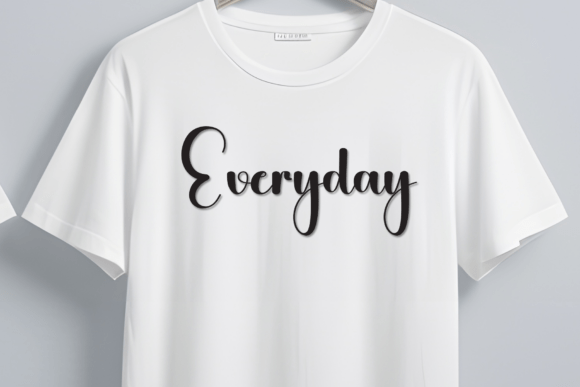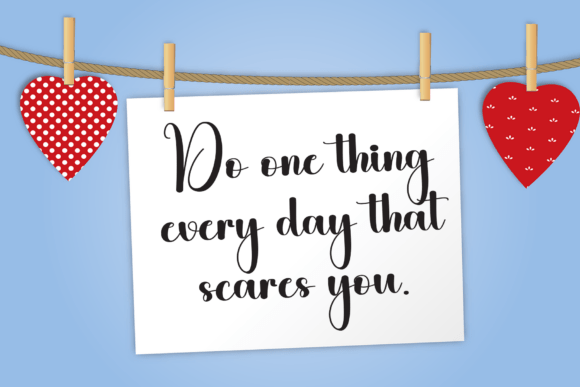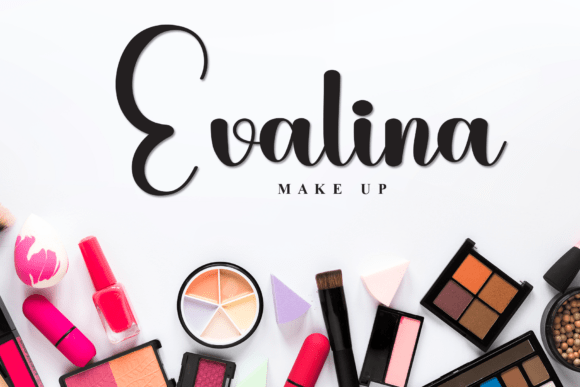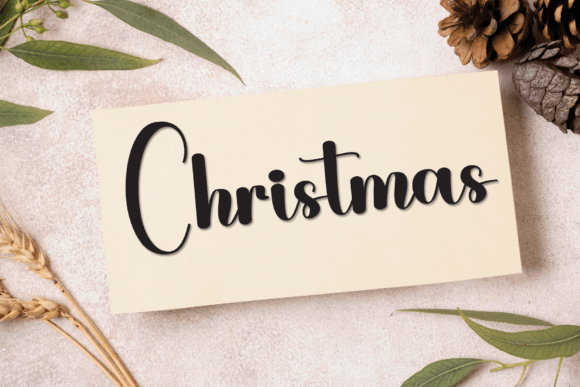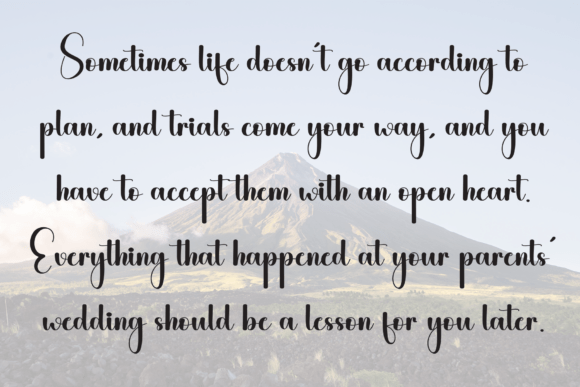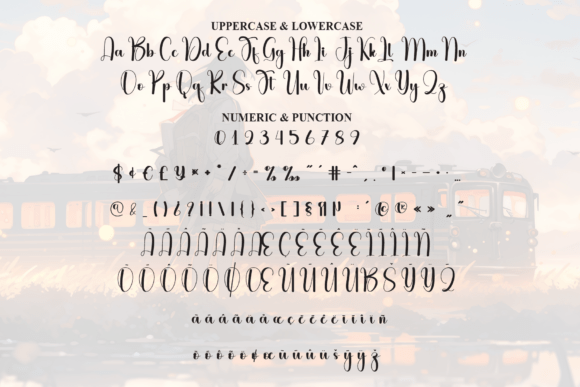
The Elegance of Anime Font: A Designer’s Delight
I’ll never forget the time I was working on a logo design project for a high-end fashion brand. The client wanted a font that exuded elegance, sophistication, and a touch of modernity. I scoured the internet, tried countless fonts, but nothing seemed to fit the bill. That was until I stumbled upon Anime Font. It was love at first sight! ✨ The fluid curves, the graceful strokes, and the carefully crafted letterforms all came together to create a font that perfectly captured the essence of the brand.
A Personal Review of Anime Font
- ✨ Elegant and sophisticated design that’s perfect for high-end branding
- ✅ Highly versatile and can be used for a variety of design projects, from logos to social media graphics
- 🌈 Beautiful, fluid curves that add a touch of modernity to any design
- 📝 Perfect for designs that require a touch of elegance and refinement
While Anime Font is an amazing font, it’s not without its quirks. For example, ⚠️ some of the letterforms can be a bit tricky to read at smaller sizes, so it’s best to use it for headlines or titles rather than body text. Additionally, 🤔 the font can be a bit overused, so it’s essential to use it in a way that feels unique and creative.
- Experiment with different OpenType features, such as glyphs and stylistic alternates, to add some extra flair to your design
The Backstory of Anime Font
Anime Font was designed by a team of talented designers who wanted to create a font that captured the essence of modern Japanese culture. Inspired by the country’s love of animation and manga, they set out to create a font that was both elegant and contemporary. The result is a font that’s perfect for designs that require a touch of sophistication and refinement.
Q: What is Anime Font?
A: Anime Font is a stylish script font that exudes elegance and contemporary charm. Featuring graceful strokes, fluid curves, and carefully crafted letterforms, it captures the beauty of hand-drawn calligraphy with a modern twist.
Q: What can I use Anime Font for?
A: Anime Font is perfect for a variety of design projects, including logos, invitations, packaging, and social media graphics.
Q: Is Anime Font easy to read?
A: Anime Font is generally easy to read, but some of the letterforms can be a bit tricky to read at smaller sizes. It’s best to use it for headlines or titles rather than body text.